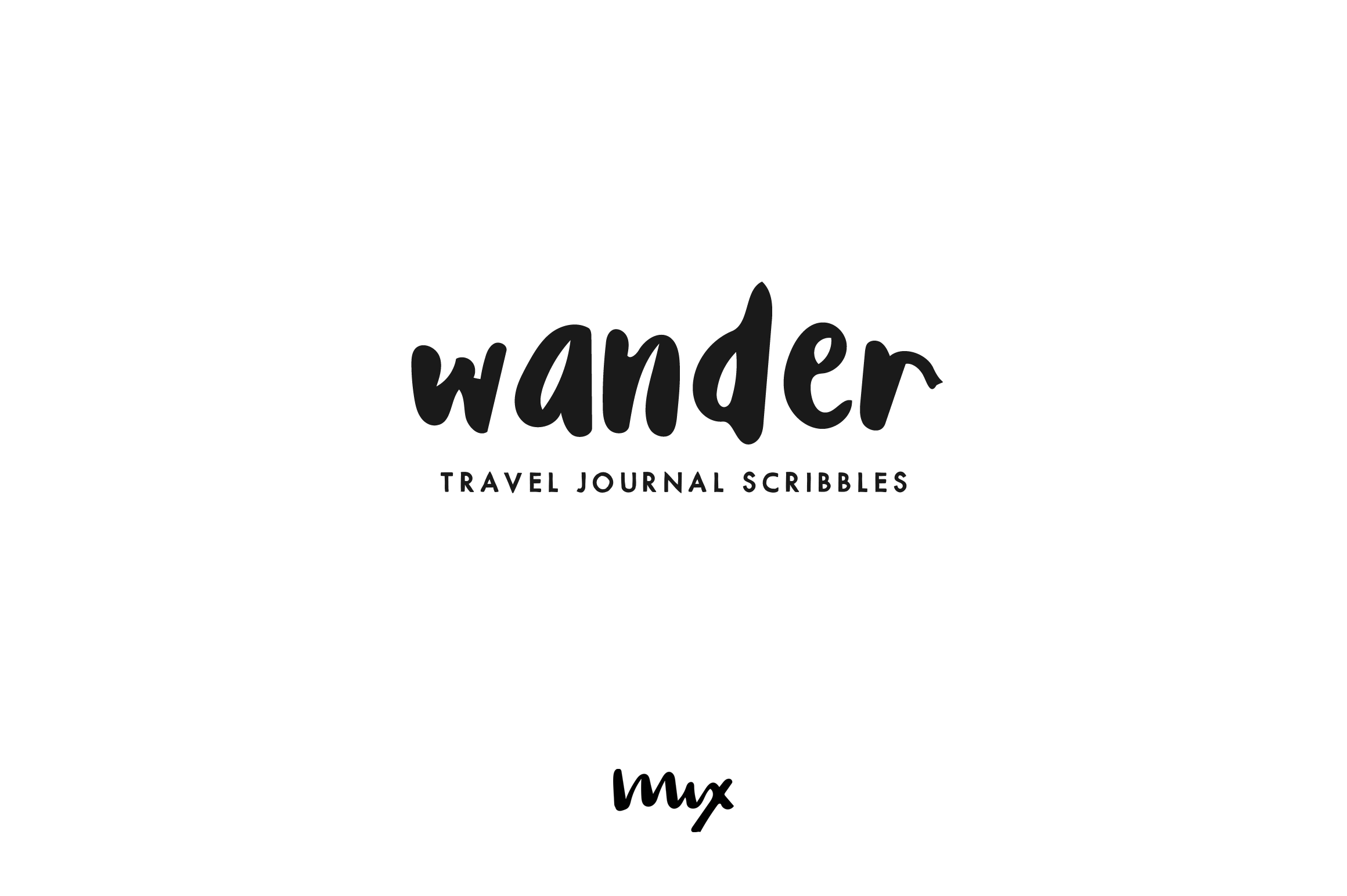
Wander — A Handwritten Font
MIX WANDER, travel journal scribbles of a young globetrotter, is a typeface perfect for handmade and DIY themed projects.